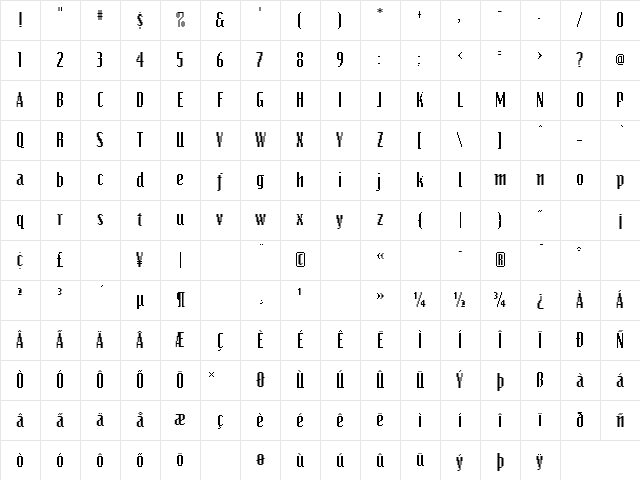
OaklandFifteen Regular
Design Context for OaklandFifteen
OaklandFifteen is a composed and adaptable typeface that performs quietly and consistently across a wide range of design contexts.